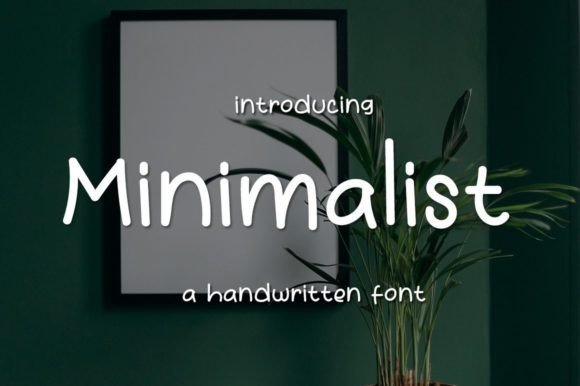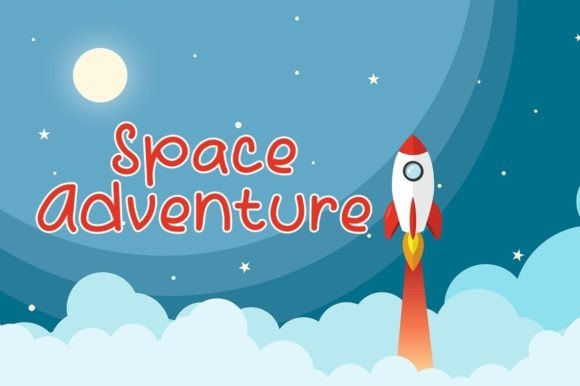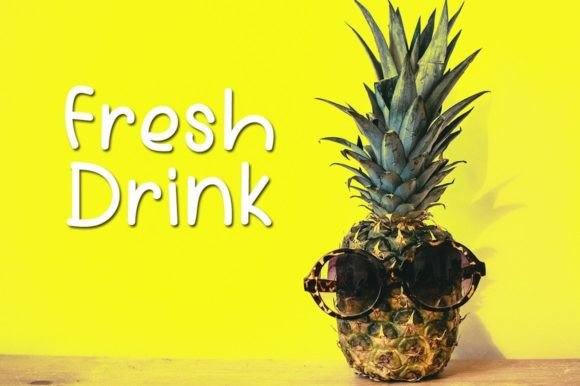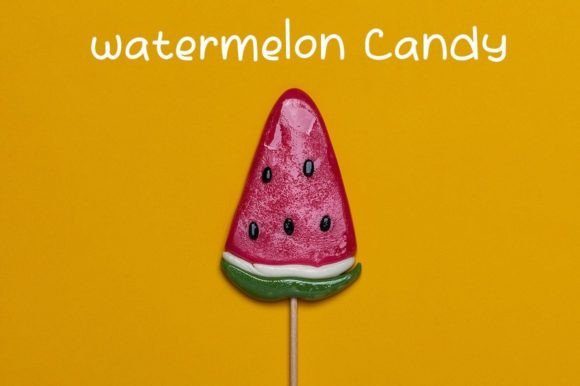
Minimalist Font
About Minimalist Font
Minimalist, with its captivating beauty and sweet handwritten style, brings a fresh, clean, and elegant aesthetic to your design projects. This font, characterized by its simplicity and charm, is a versatile choice that complements a wide range of applications, both formal and informal.
Incorporating Minimalist into your projects adds an element of joy and sophistication. Its clean lines and understated elegance make it suitable for various design contexts, creating a visual impact that is both modern and timeless. Whether you’re working on formal business materials or more casual, creative endeavors, Minimalist adapts seamlessly to meet your design needs.
The minimalist design philosophy embodied by this font is not just about simplicity; it’s a deliberate choice to enhance visual appeal and convey a sense of modernity. In a world where clarity and elegance are valued, Minimalist stands out as a font that can effortlessly elevate your designs.
Utilizing Minimalist in your business materials enhances the overall aesthetic, making your brand or message more beautiful and engaging. The font’s sweet handwritten style adds a personal and approachable touch, fostering a connection with your audience.
Fonts play a crucial role in simplifying and refining design elements, and Minimalist excels in this regard. Its clean and uncomplicated nature ensures that your message is communicated clearly, without unnecessary distractions. The result is a visually pleasing design that resonates with modern sensibilities.
In summary, Minimalist is more than just a font; it’s a design tool that brings beauty, simplicity, and joy to your creative projects. Whether you’re creating formal documents or informal, expressive designs, Minimalist has the versatility to enhance your visual communication. Let the sweetness of this handwritten font elevate your business aesthetics, making your designs not just beautiful, but also more impactful and memorable.